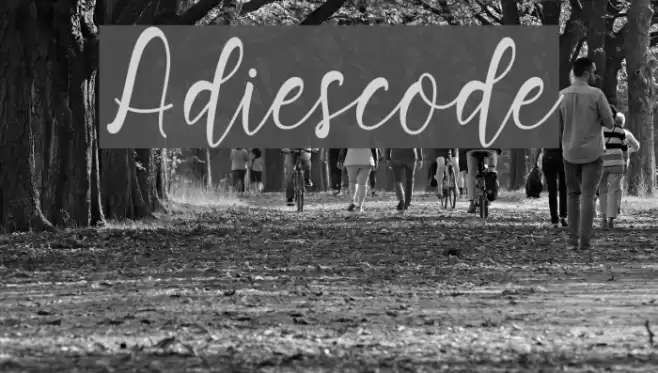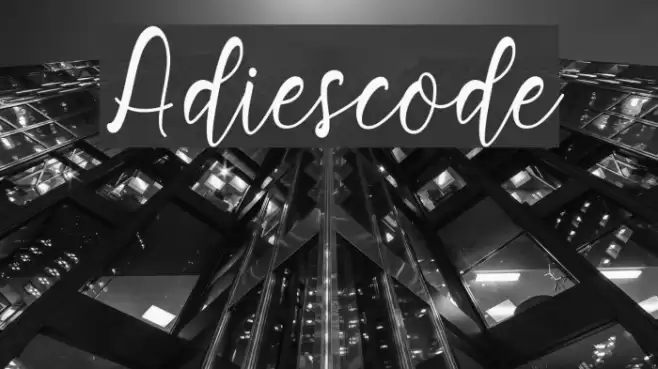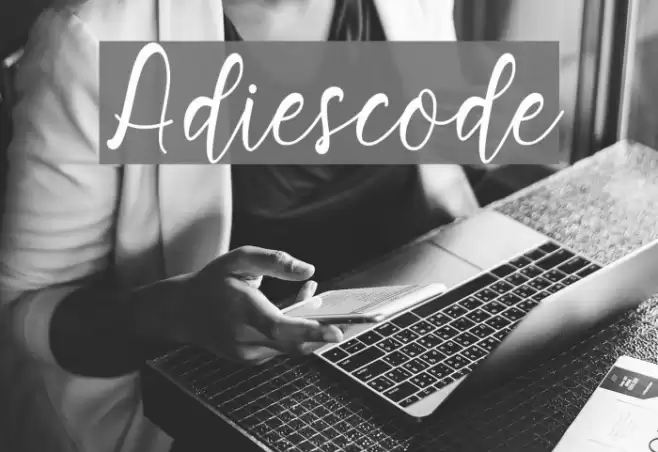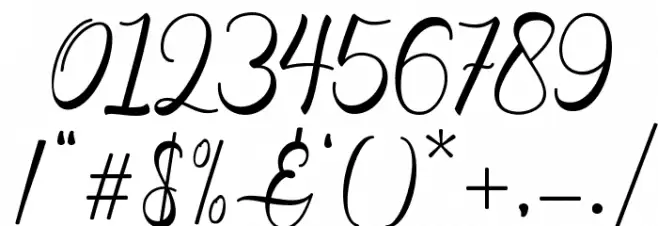
Adiescode Font
Adiescode Description
This font features a flowing, cursive style with elegant loops and swashes, creating a sense of movement and grace. The uppercase letters are tall and slender, while the lowercase letters maintain a consistent flow, enhancing readability. The numerals are distinct and well-balanced, complementing the overall aesthetic. Special characters are designed with the same attention to detail, ensuring a cohesive look across all elements. The font's design is both sophisticated and approachable, making it suitable for a variety of applications.
A flowing, cursive font with elegant loops and swashes from Uncategorized fonts.
- Proposed Projects: Ideal for wedding invitations, greeting cards, branding, and elegant packaging.
- Overall Style: Elegant
- Use Case: Logos, Invitations, Branding